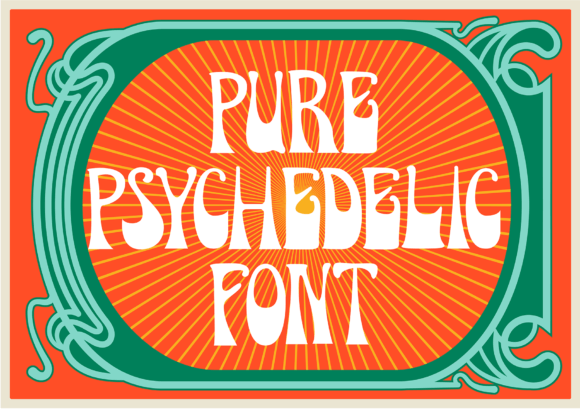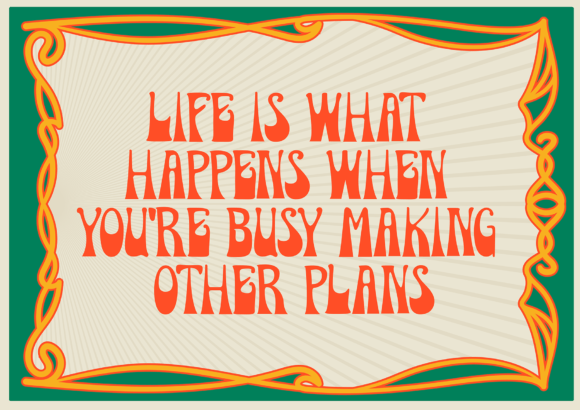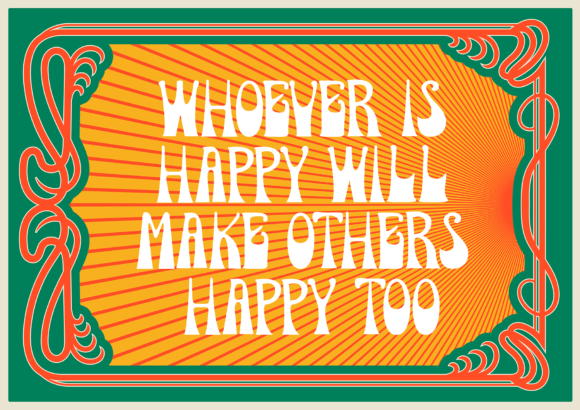
Adding a Dose of Fun to Your Creative Projects
Have you ever been stuck in a design rut, searching for that perfect font to bring your project to life? It’s a feeling we’ve all been there, staring at a blank canvas, desperate for inspiration. That’s when the magic happens – you stumble upon a font that’s bold, playful, and just plain fun.
Enter Bacesy Display Font, the perfect antidote to your creative woes. This psychedelic display font is a masterclass in retro cool, with its bold lines and vibrant colors guaranteed to inject some much-needed fun into your designs. Whether you’re working on a graphic novel, a music festival poster, or a social media campaign, Bacesy Display Font is the perfect addition to your toolkit.
Bacesy Display Font Key Features
- Unique Characteristics: Bacesy Display Font features a bold, modern design with a distinctive flair, making it ideal for headlines and titles
- Font Style: Display font with a wide range of weights, from light to bold, allowing for flexibility in design and layout
Bacesy Display Font Review
I recently had the chance to work with the Bacesy Display Font, and I’m sharing my honest thoughts about it. Here’s what I think:
- Unique Design: Bacesy Display Font has a distinctive and eye-catching design that’s perfect for making a statement. Its bold lines and geometric shapes make it ideal for titles and headings.
- High-Quality Rasterization: The font’s rasterization is top-notch, ensuring that it looks great on both digital and print materials.
- Good Legibility: Despite its bold design, Bacesy Display Font is still easy to read, making it suitable for a wide range of applications.
- Limited Character Set: Bacesy Display Font’s character set is somewhat limited, which may be a concern for projects that require a wide range of special characters or languages.
- No Italic or Oblique Options: The font doesn’t come with italic or oblique versions, which may limit its versatility in certain situations.
Overall, I think Bacesy Display Font is a solid choice for projects where a bold, eye-catching font is needed. While it has some limitations, its unique design and high-quality rasterization make it a great option for titles, headings, and other display text. However, it may not be the best choice for projects that require a wide range of characters or languages.
To get the most out of Bacesy Display Font, use it for:
Headings and titles to add a touch of elegance and sophistication.
Quote graphics and social media posts to create a visually appealing design.
Alternatives to Bacesy Display Font
Great Vibes is a beautiful, elegant script font perfect for creating a luxurious and sophisticated feel. It’s ideal for branding, invitations, and wedding designs. When to use: Elegant, high-end branding, invitations, wedding designs.
Comparison to Bacesy Display Font: Great Vibes has a more refined and sophisticated look compared to Bacesy Display Font, which is more playful and whimsical. Great Vibes is also more suitable for formal designs, while Bacesy Display Font is better suited for casual and creative projects.
Carolyna Pro is a modern, elegant script font with a touch of sophistication. It’s perfect for creating a high-end feel and is ideal for branding, packaging, and editorial designs. When to use: High-end branding, packaging, editorial designs.
Comparison to Bacesy Display Font: Carolyna Pro has a more modern and sleek look compared to Bacesy Display Font, which is more vintage and playful. Carolyna Pro is also more versatile and can be used for a wide range of designs, while Bacesy Display Font is better suited for creative and whimsical projects.
Is Bacesy Display Font optimized for digital use?